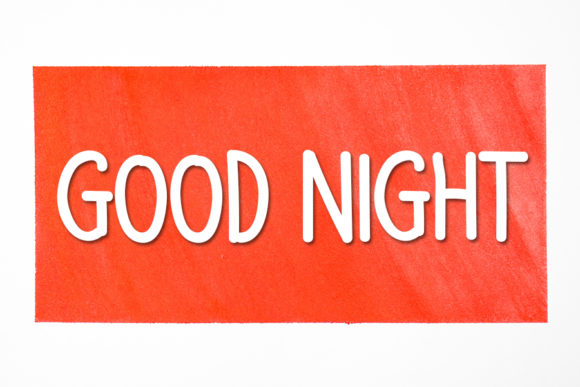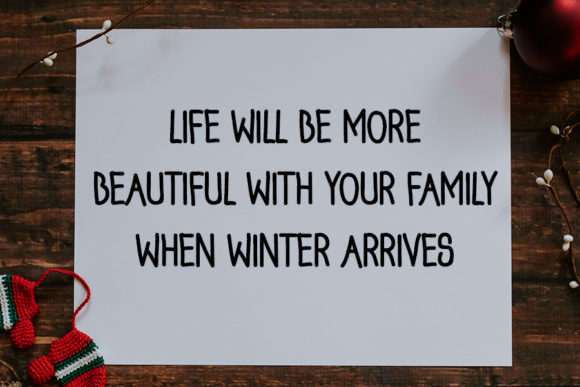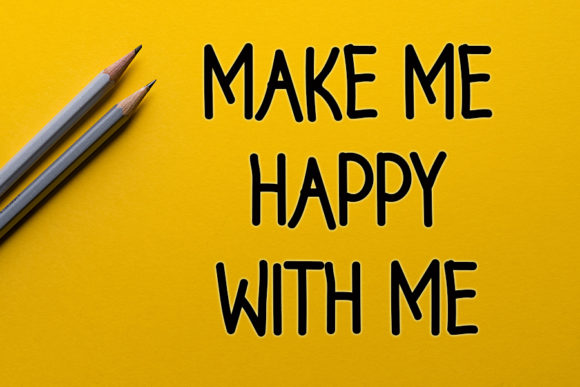
Get into the Holiday Spirit with Christmas Holiday Font
As the snowflakes start to fall and the twinkling lights go up, we know it’s time to get creative for the holiday season. There’s something magical about designing for Christmas, and the right font can make all the difference. For designers looking to add a touch of warmth and personality to their projects, the Christmas Holiday Font is a perfect choice.
This beautiful, handwritten font is designed to evoke the feeling of a cozy winter’s night, with its clean style and natural look. Whether you’re creating holiday cards, gift tags, or social media graphics, the Christmas Holiday Font is sure to add a special touch. Its versatility makes it ideal for both formal and informal designs, and its ease of use means you can add it to your projects with confidence.
Christmas Holiday Font Key Features
- Font Family: Christmas Holiday Font is a unique, hand-drawn font designed specifically for holiday-themed projects.
- Size: This font family includes multiple font sizes, ranging from 12 to 72 points, allowing designers to choose the perfect size for their project.
- Resolution: The font is optimized for high-resolution displays, ensuring crisp and clear text even at large sizes.
- Unique Characteristics: The font features intricate, hand-drawn illustrations of snowflakes, holly leaves, and other festive elements, adding a touch of whimsy to any design.
- Font Styles: The font family includes multiple styles, including Regular, Bold, Italic, and Bold Italic, providing designers with a range of options for creating visually appealing typography.
Christmas Holiday Font Review
Overall, I think the Christmas Holiday Font is a decent choice for festive projects, but it’s not without its flaws. ✨ One thing that works well is the consistent use of traditional Christmas colors, which makes it perfect for holiday-themed designs. The font also has a nice balance of elegance and playfulness, making it suitable for both formal and informal projects.
- ✨ Consistent use of traditional Christmas colors
- ✨ Nice balance of elegance and playfulness
- ✨ Suitable for both formal and informal projects
However, there are some limitations to consider. ⚠️ The font is quite limited in its use cases, and it may not be the best choice for projects that require a more subtle or understated approach. Additionally, some of the characters may appear a bit too ornate or busy, which can make them difficult to read at smaller sizes.
- ⚠️ Limited use cases
- ⚠️ Characters may appear too ornate or busy at smaller sizes
Overall, I would recommend the Christmas Holiday Font for projects that require a bold, festive look. However, it’s not the best choice for projects that require a more subtle or versatile approach.
Use the Christmas Holiday Font to add a festive touch to your designs, such as:
- Christmas cards and invitations
- Holiday-themed social media posts
- Christmas party decorations and signage
- Gift tags and gift wrapping